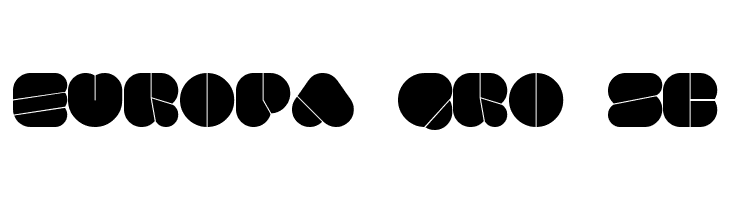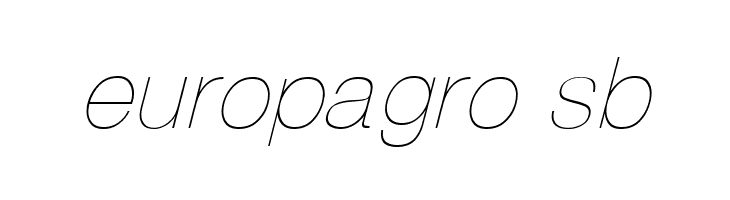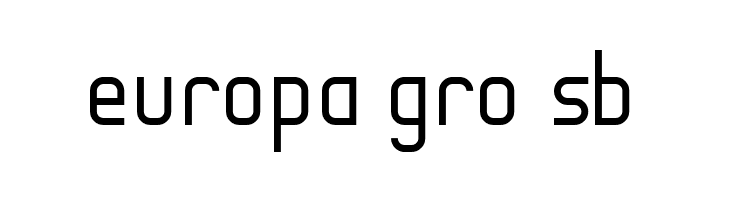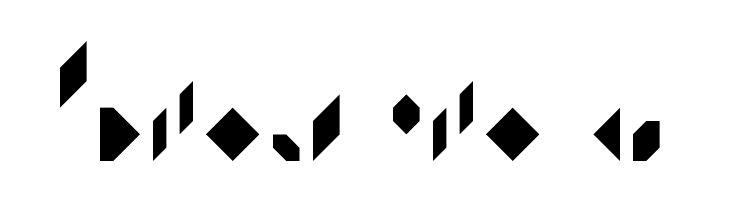
A bold, geometric font with a playful, bubble-like design.
A modern, sans-serif font with clean, geometric letterforms and uniform stroke width.
A sleek, thin, and oblique font with a modern and elegant style.
A futuristic, geometric font with rounded, continuous lines and a modern aesthetic.
A clean, geometric font with a modern and professional style.
A geometric, abstract font with bold, angular shapes and a futuristic aesthetic.
A bold, geometric font with a futuristic and industrial design.